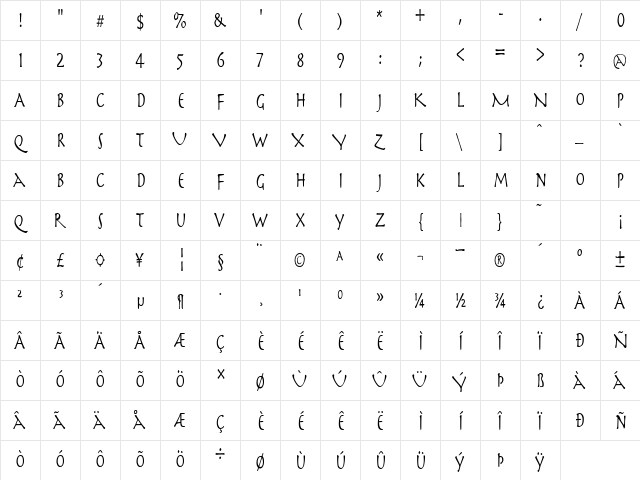
PerseusCondensed Regular
Design Context for PerseusCondensed Typeface
PerseusCondensed offers clean, dependable letterforms without strong stylistic allegiance, making it a practical choice for designers who need flexibility. The condensed width makes it efficient for tight spaces without sacrificing legibility.